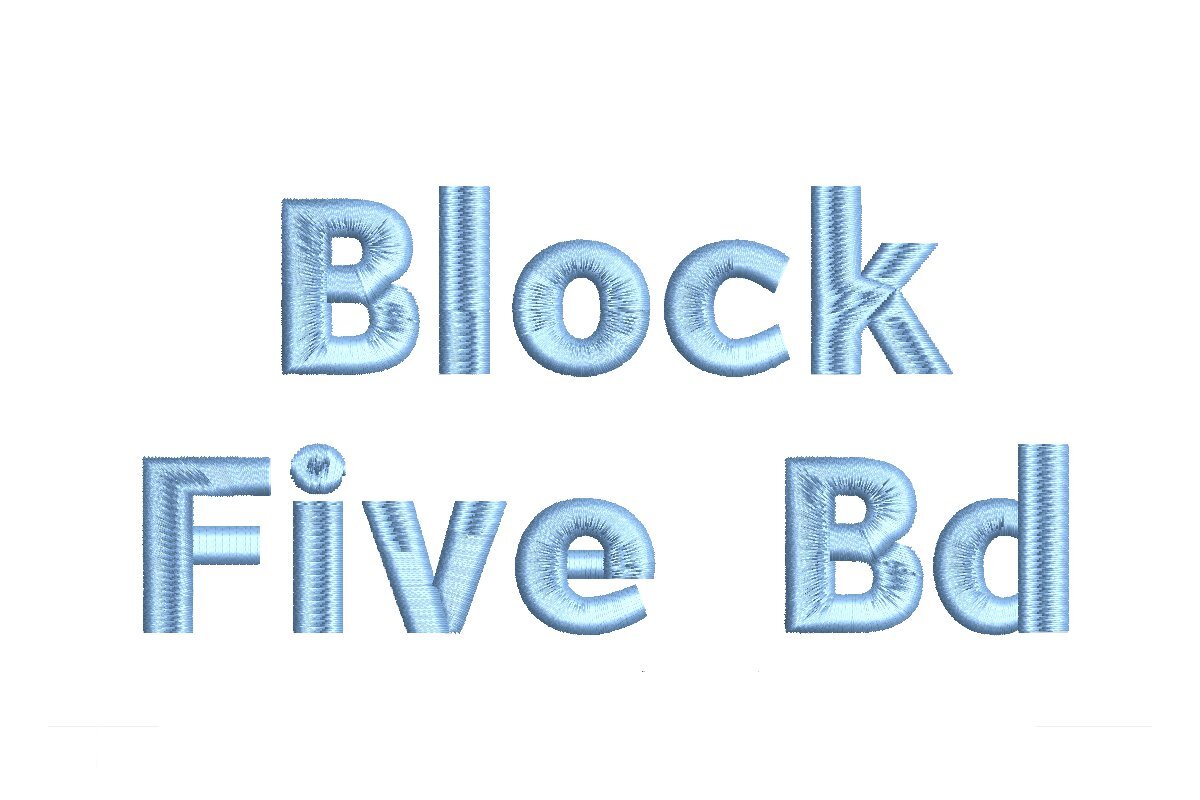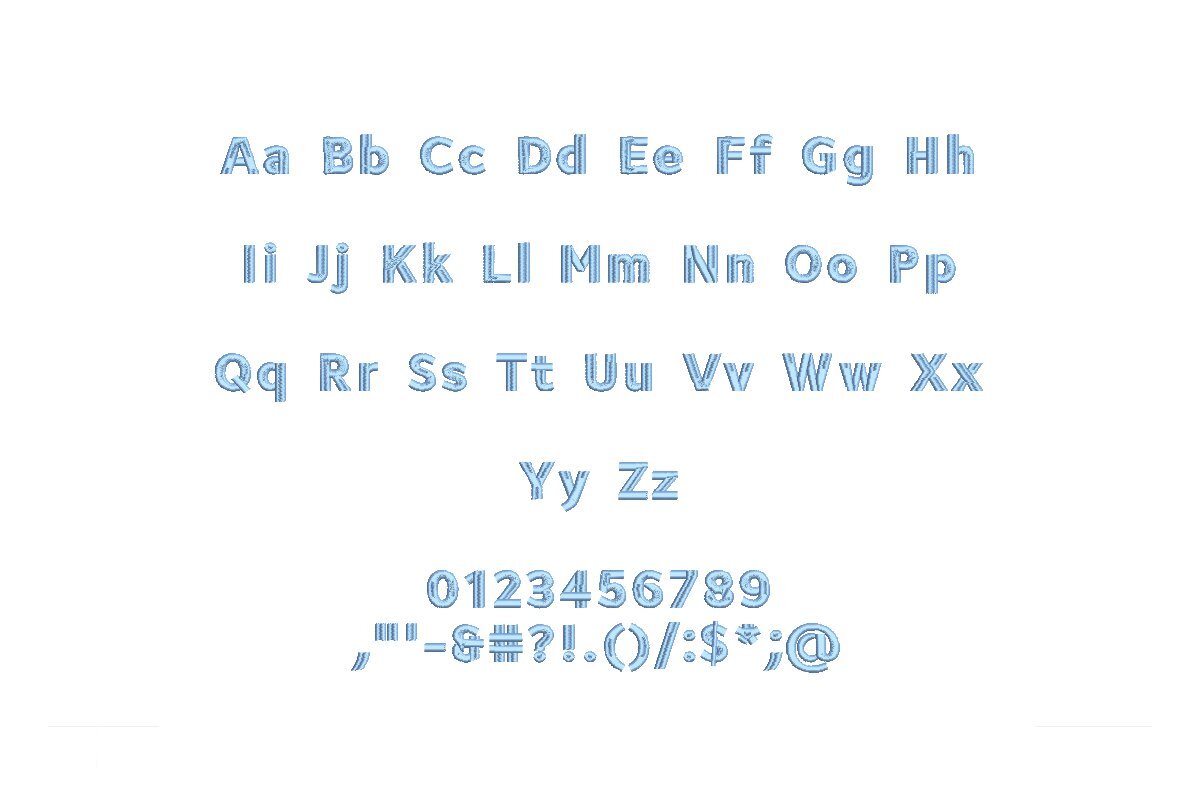
Introducing Block Five Bold ESA Font - Your Embroidery Powerhouse! Crafted for seamless compatibility with Wilcom Studio e4.5.6 and Hatch 3 versions and beyond, this font packs a bold punch. Elevate your designs with its commanding presence and sharp edges. Whether you're a professional or a hobbyist, Block Five Bold ESA unlocks a world of creative potential. Its effortless integration with the latest software versions ensures efficiency, saving you time. Each stitch exudes precision and excellence, making your embroidery projects stand out. Don't miss the opportunity to enhance your toolkit with Block Five Bold ESA Font. Get started today for embroidery with impact!